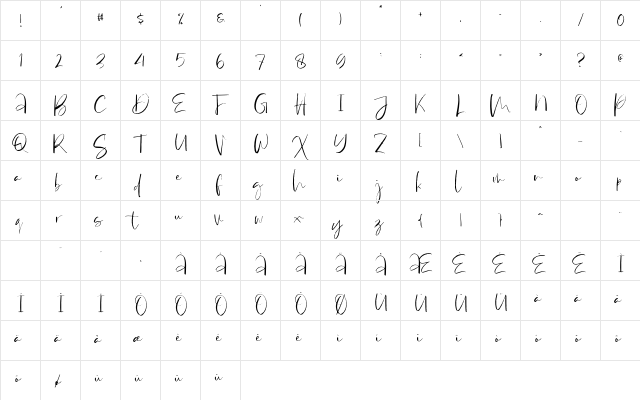
Antosan Regular
| Foundry | AwanStudio |
| Designer | AwanStudio |
Design Context for Antosan Typeface
Antosan is a composed and adaptable typeface that performs quietly and consistently across a wide range of design contexts.